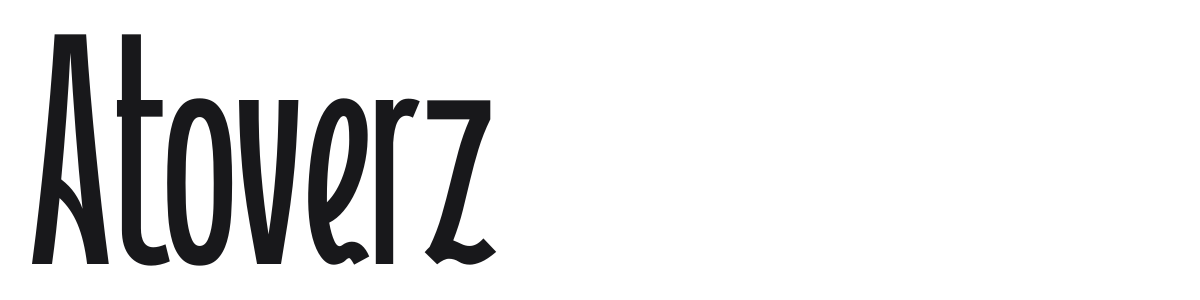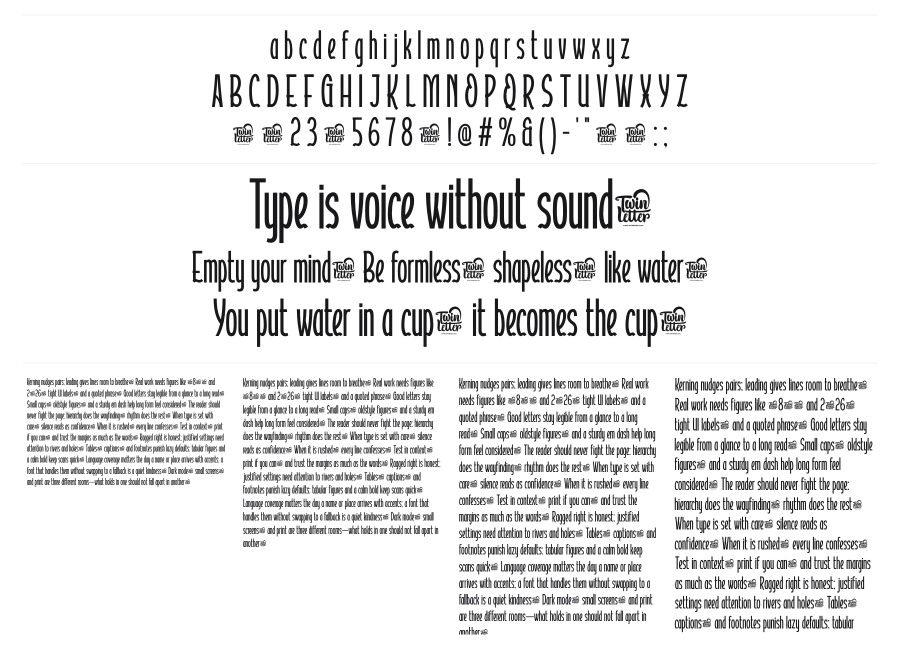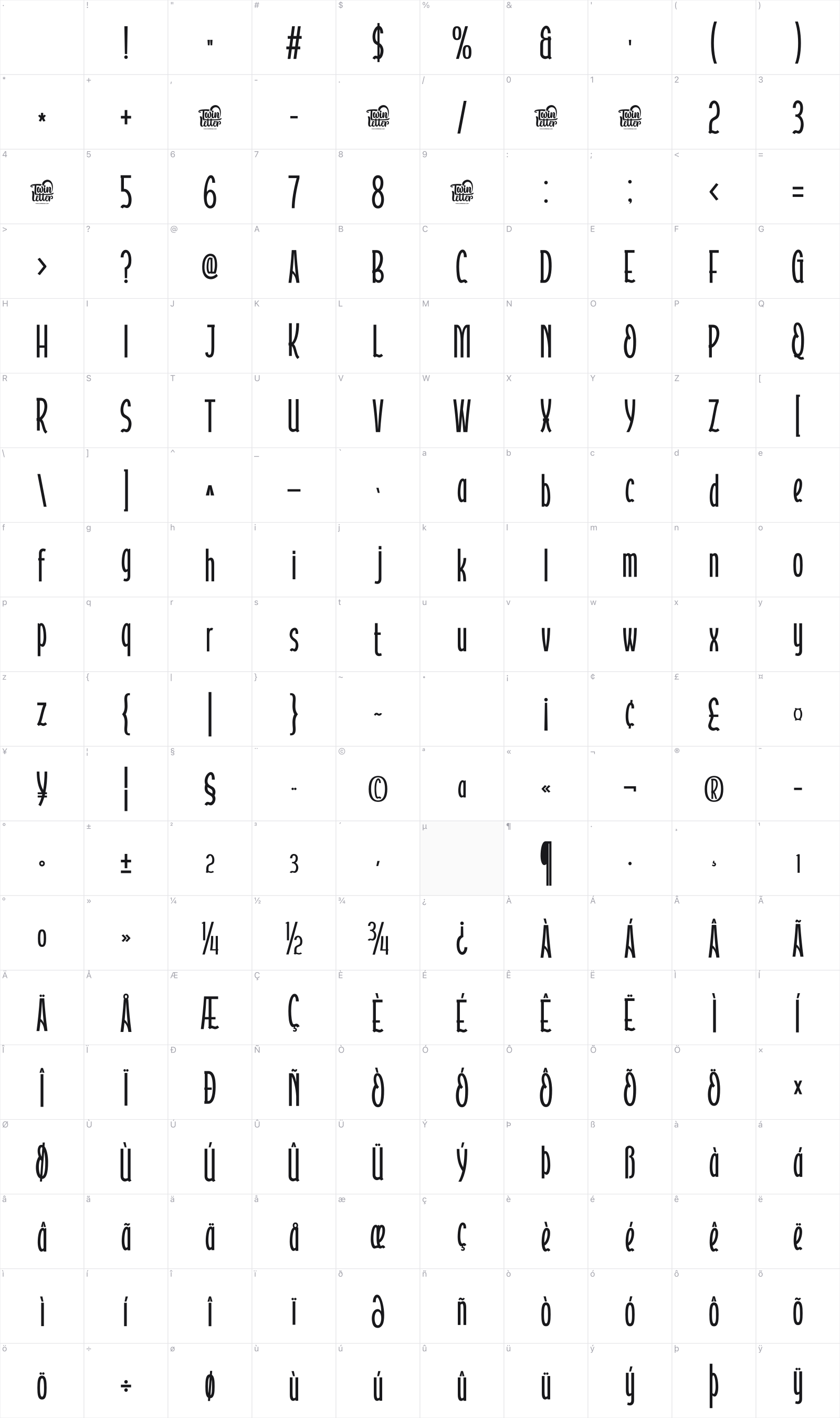
Atoverz
Atoverz is a tall, heavily condensed retro sans with softly rounded terminals and bold presence. Its extremely narrow proportions recall 1970s hand-lettered headlines and vintage poster typography. The design packs a lot of personality into a tight column, making it a strong choice for logotypes, editorial headlines, and packaging.